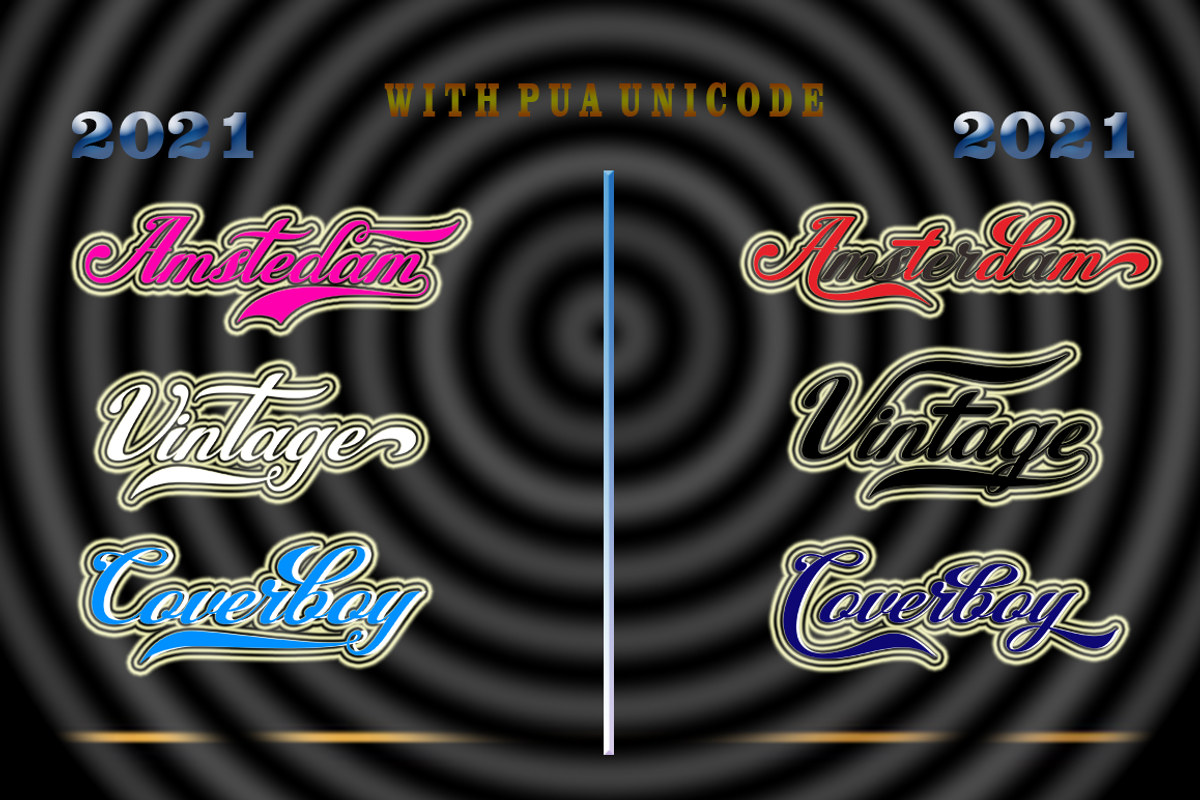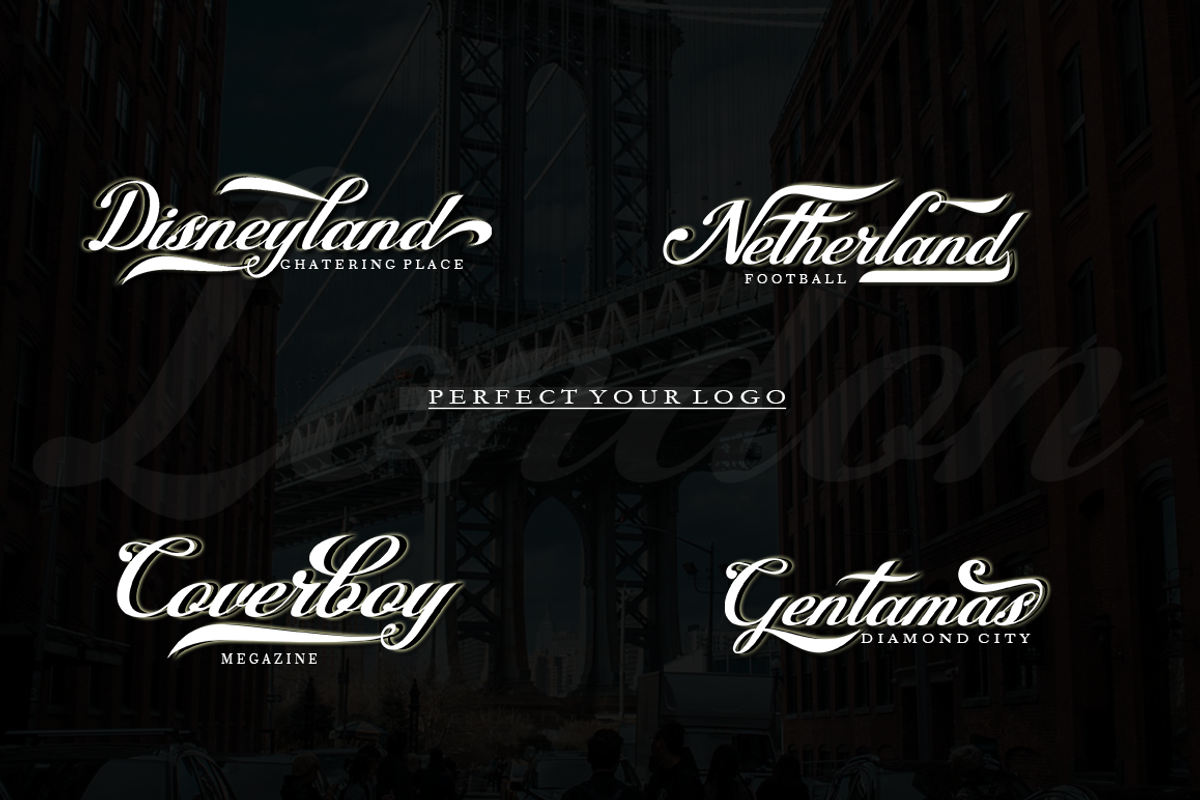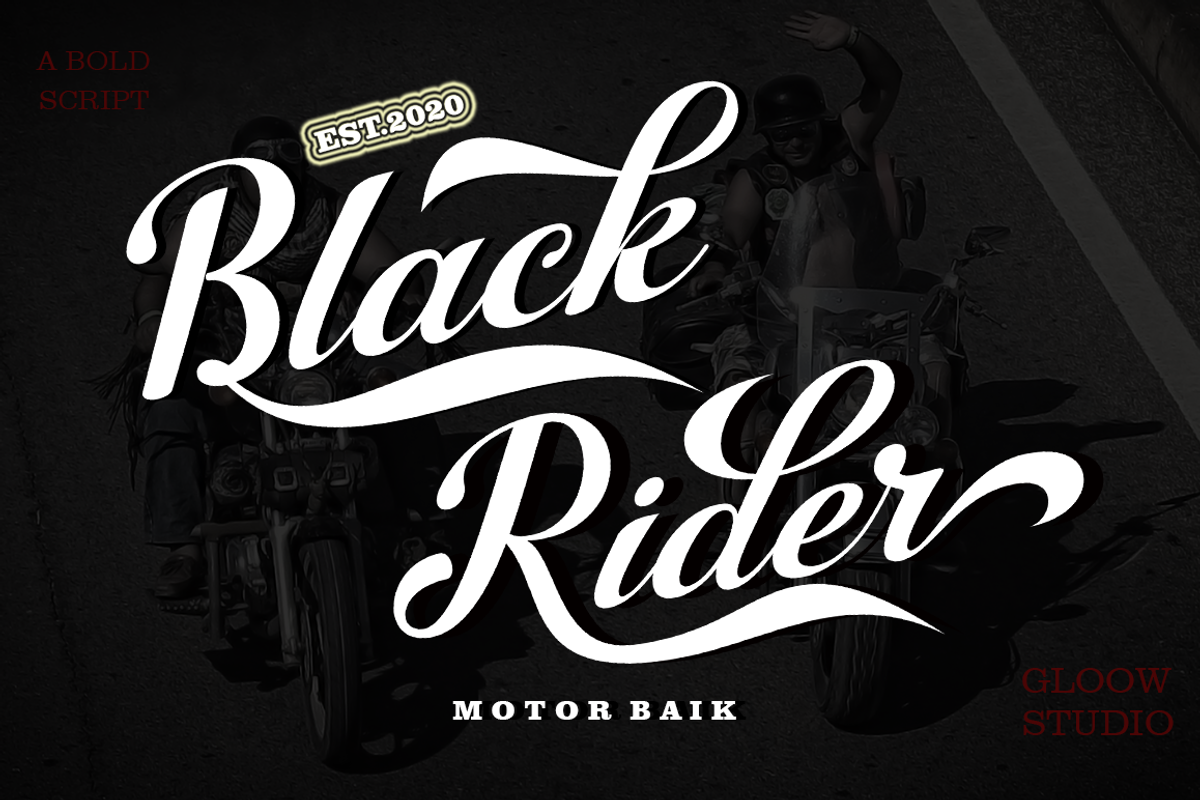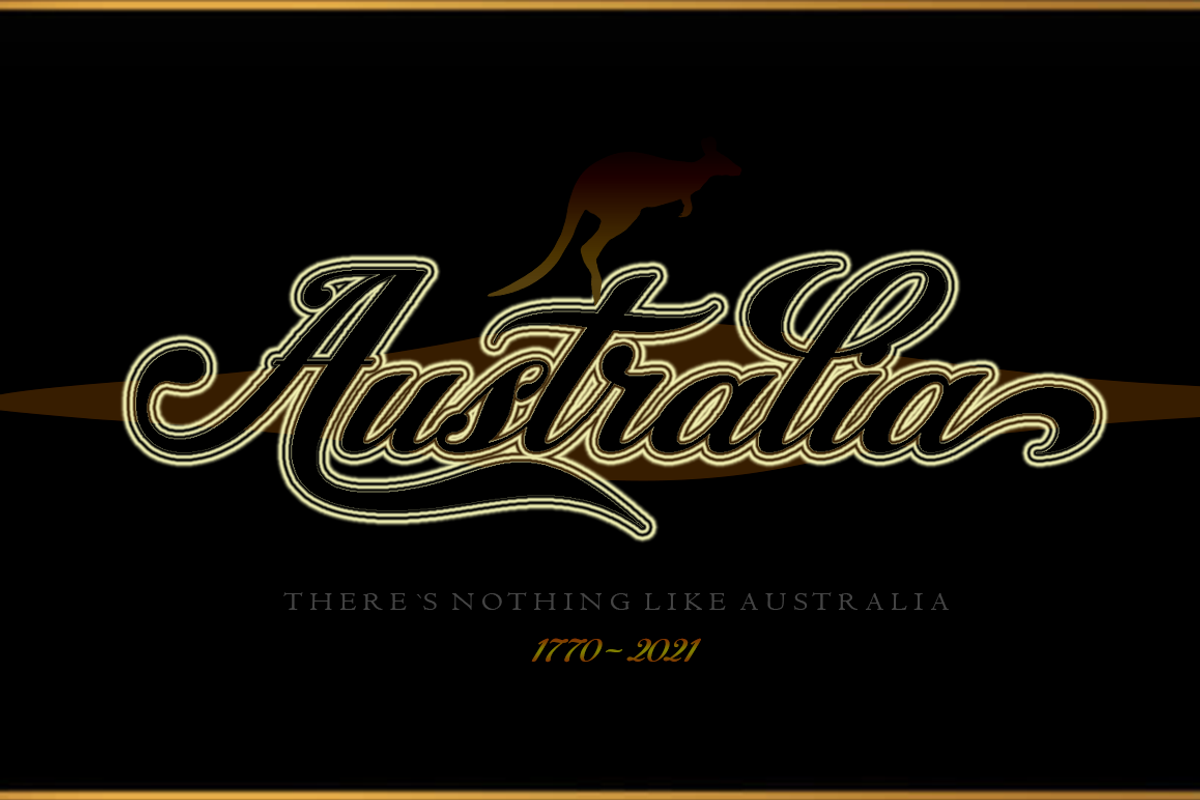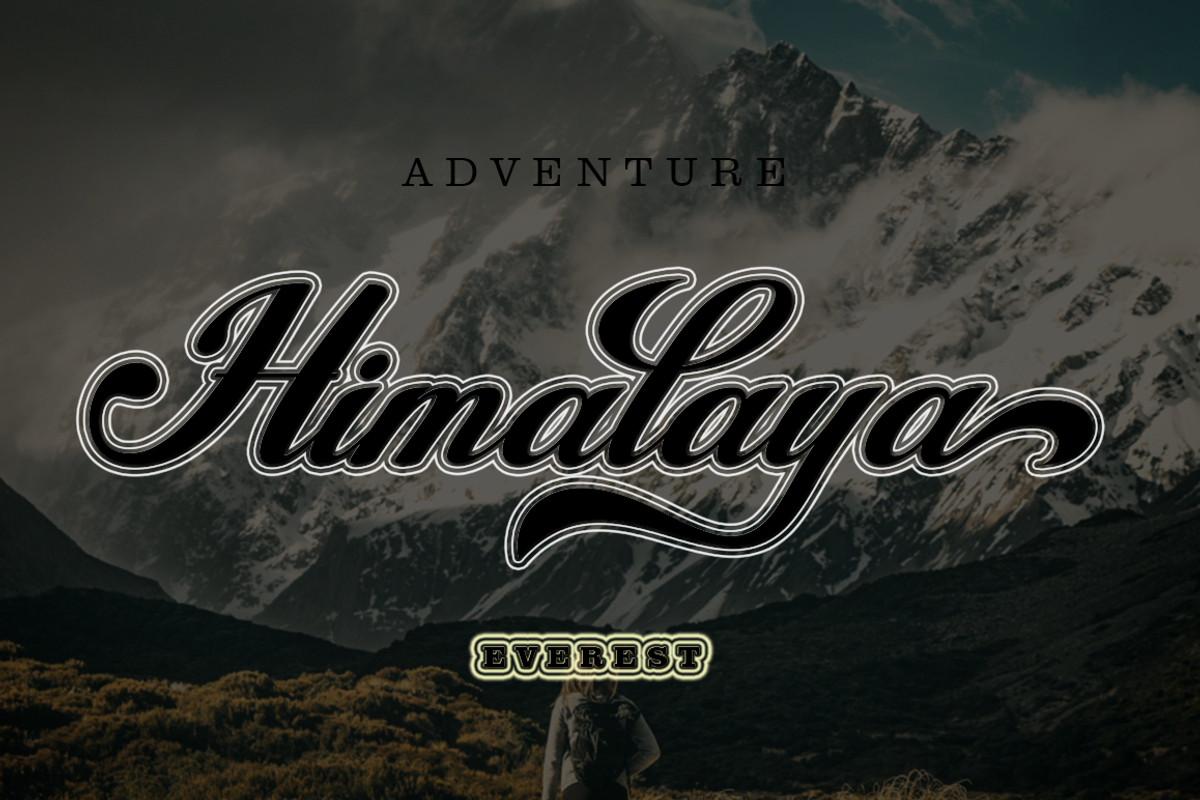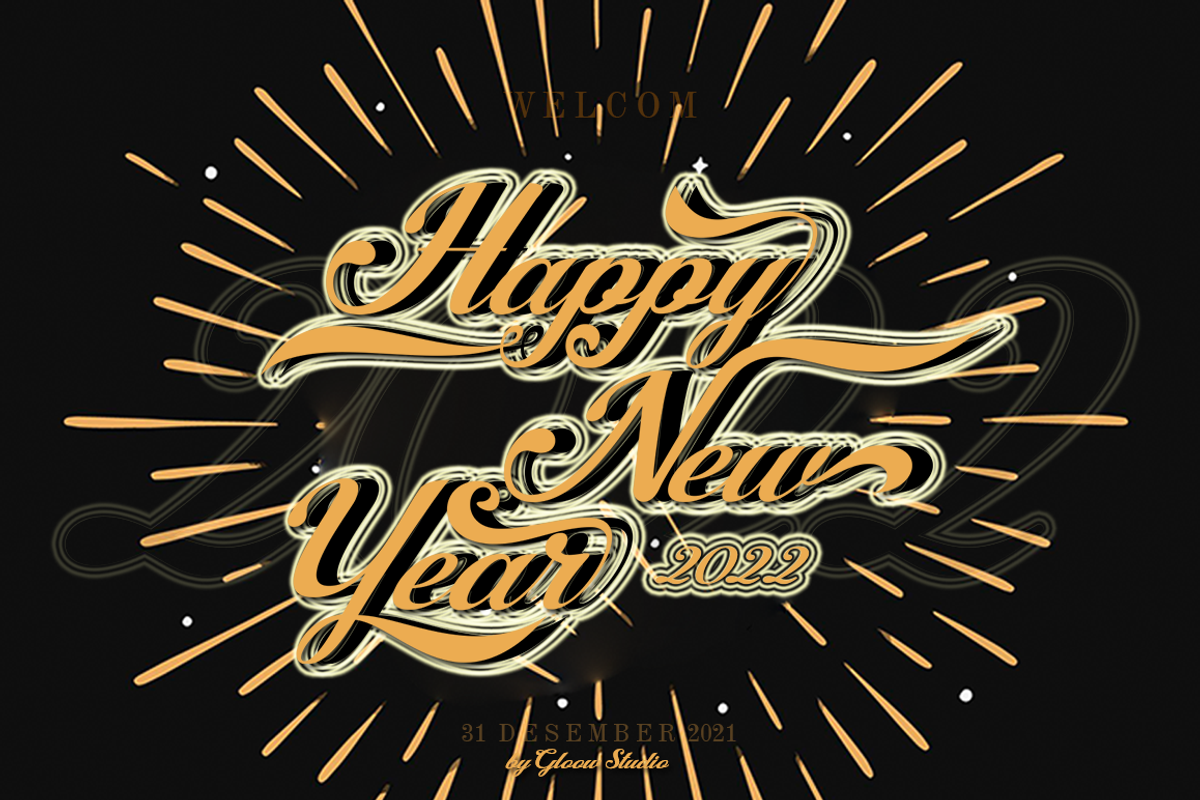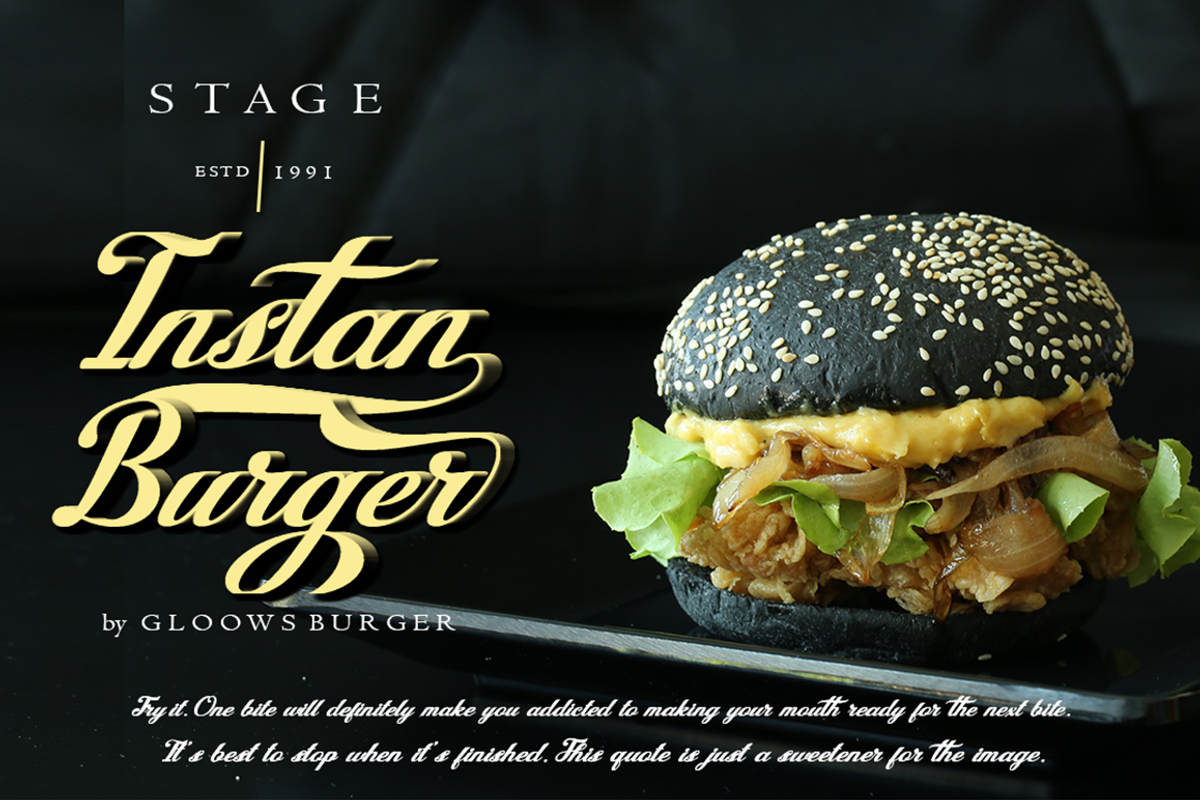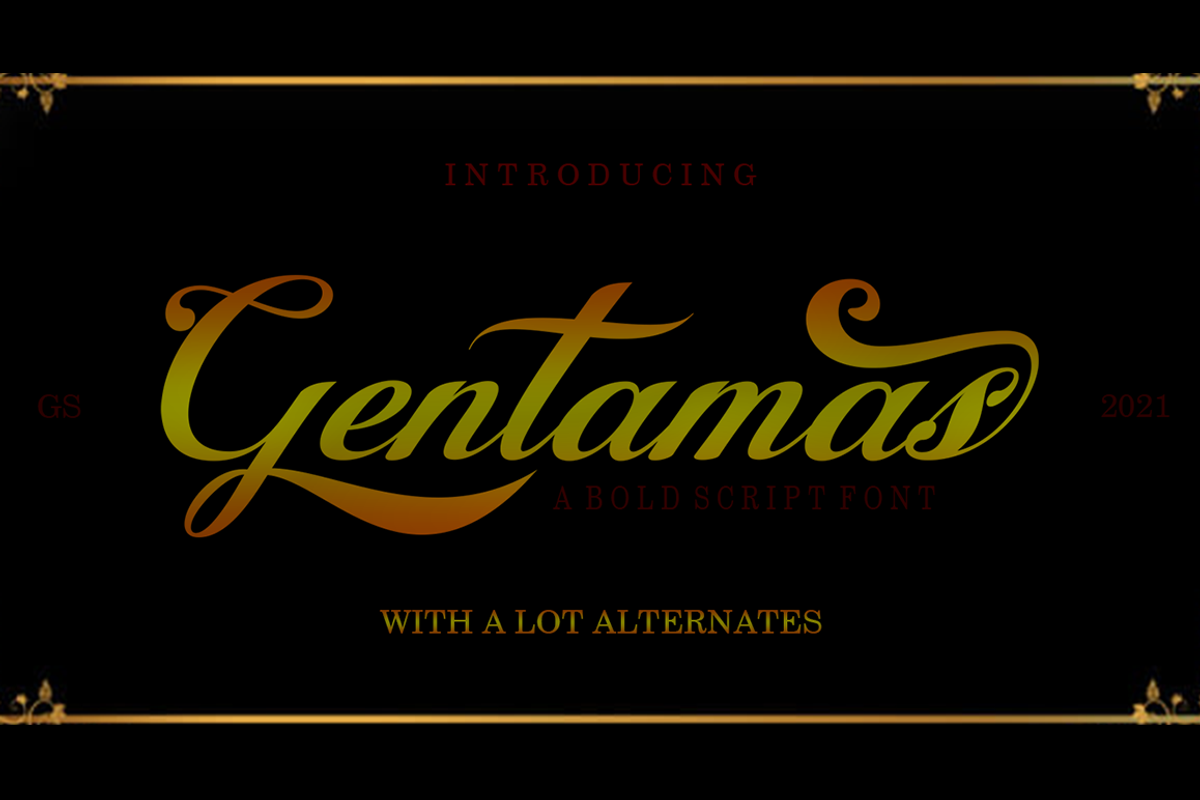
Gentamas Script
Gentamas Inspired by Retro style and combination with Hand Lettering style. I'm made with personality touch every single curve. I hope this can make inspire you from your work. Ideal for logos, handwritten quotes, product packaging, header, poster, merchandise, social media & greeting cards.Files Include :